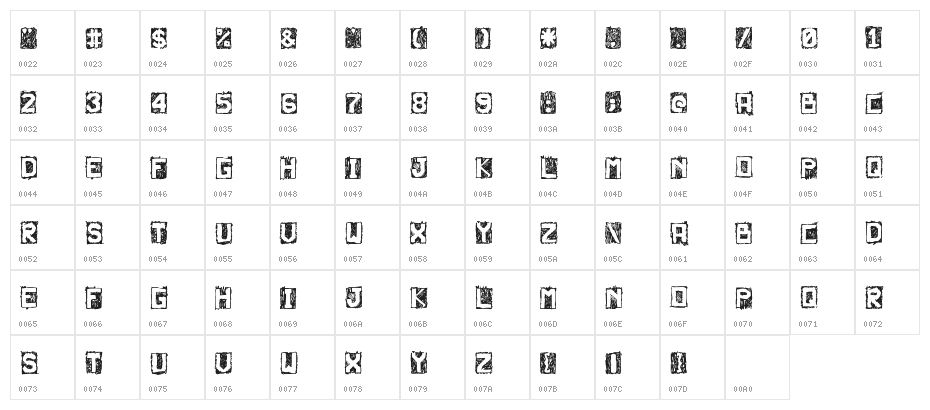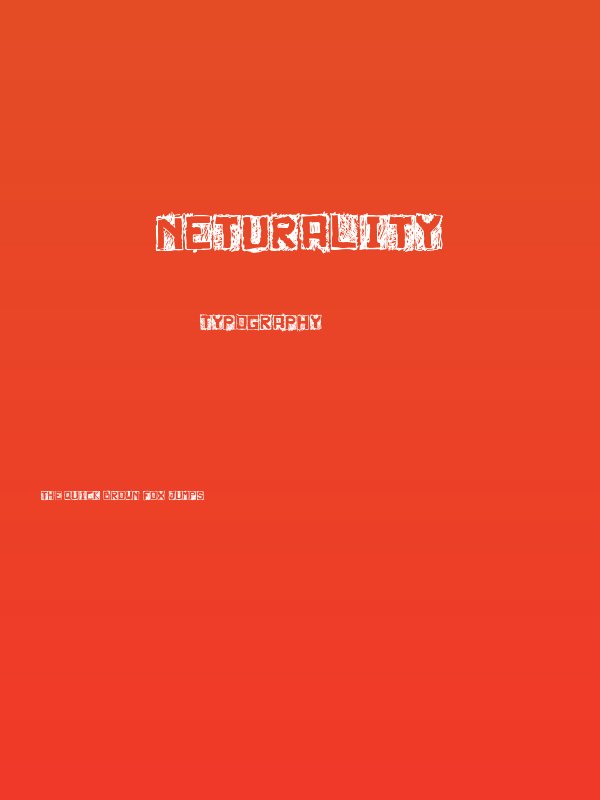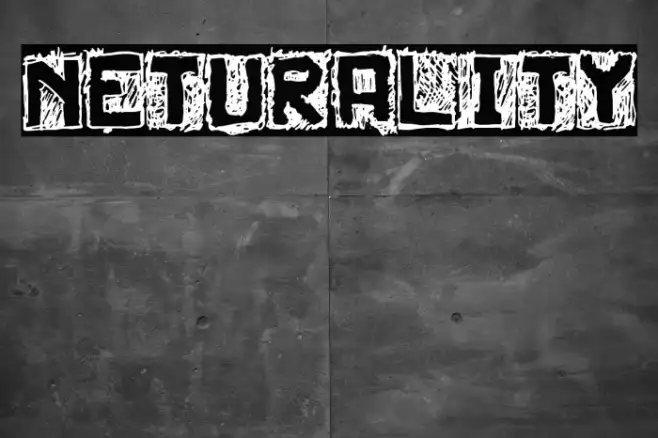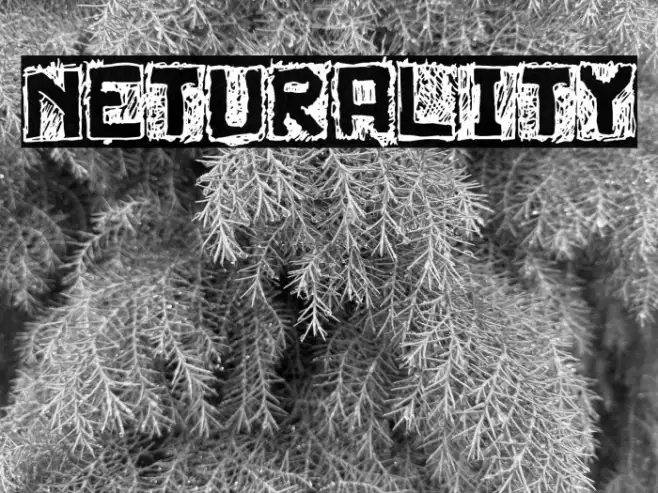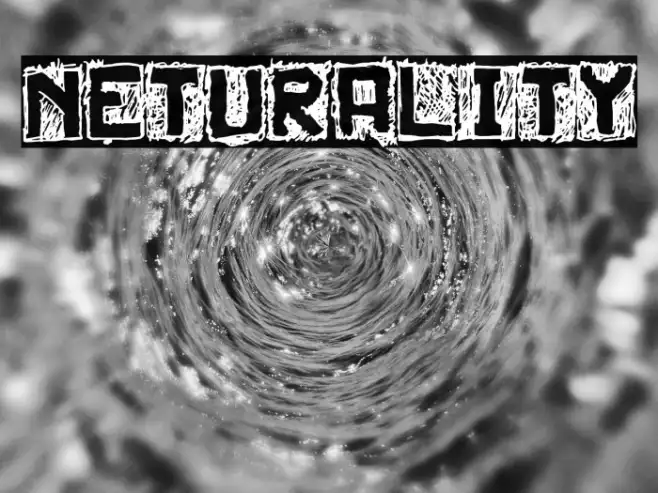
Neturality Font
Neturality Description
This font features a bold, hand-drawn style with a rough, textured appearance that gives it a unique, artistic flair. Each character is enclosed in a box-like shape, adding a sense of structure while maintaining a playful, sketch-like quality. The irregular edges and varying line thicknesses contribute to its dynamic and energetic feel. This font is highly decorative, making it ideal for creative projects that require a standout visual element. Its distinctiveness makes it suitable for attention-grabbing headlines or artistic designs.
| Overall Style | Artistic, Playful |
| Use Case | Headlines, Artistic designs |
| Proposed Projects | Ideal for posters, album covers, artistic branding, and creative event invitations. |